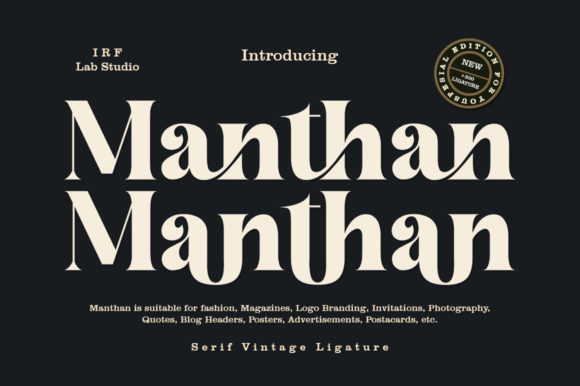
Manthan is a stylish serif font inspired by a groovy 70s vibe with a touch of modernity. It looks amazing at display size and is easy to read in text size. This font is PUA encoded which means you can access all of the glyphs and swashes with ease!v